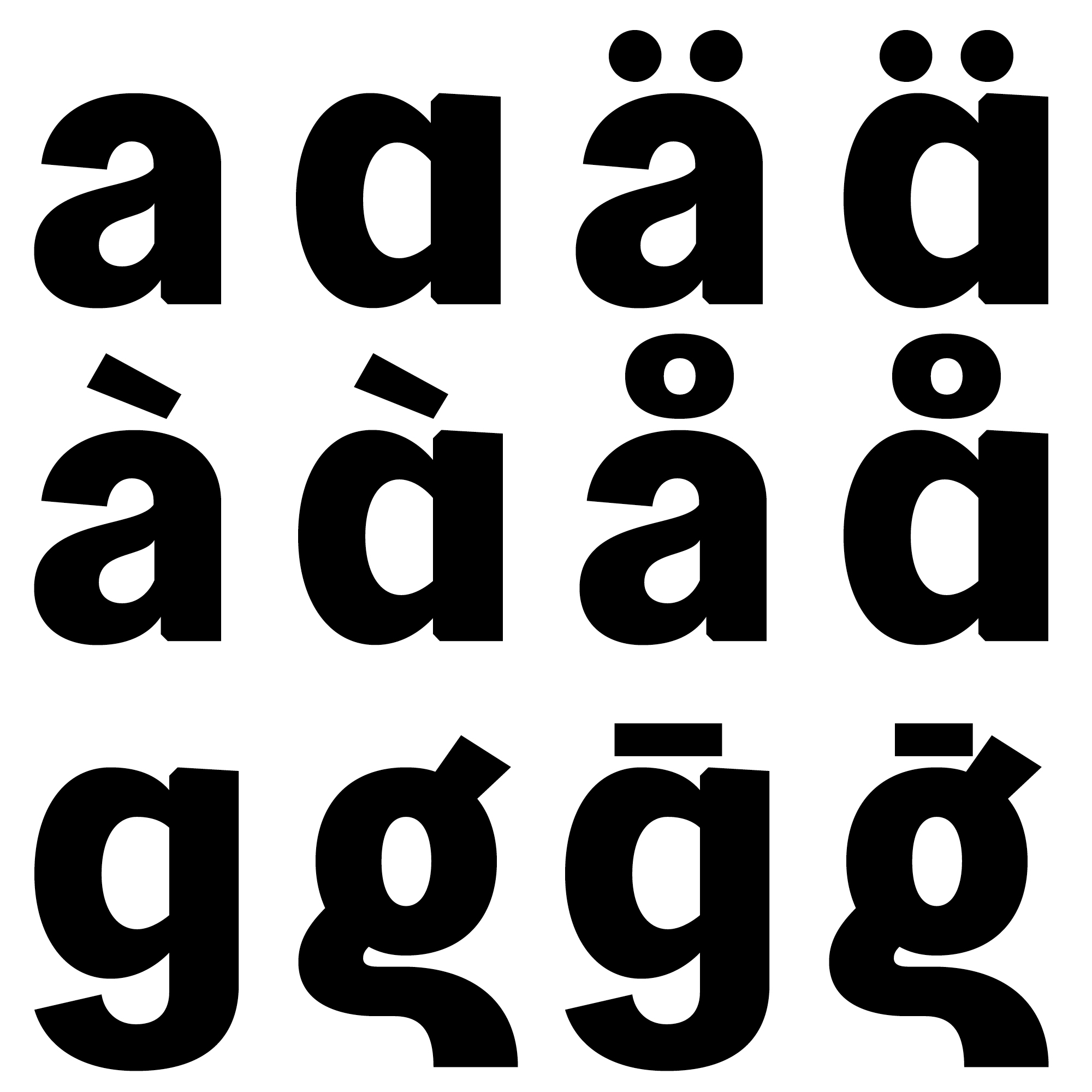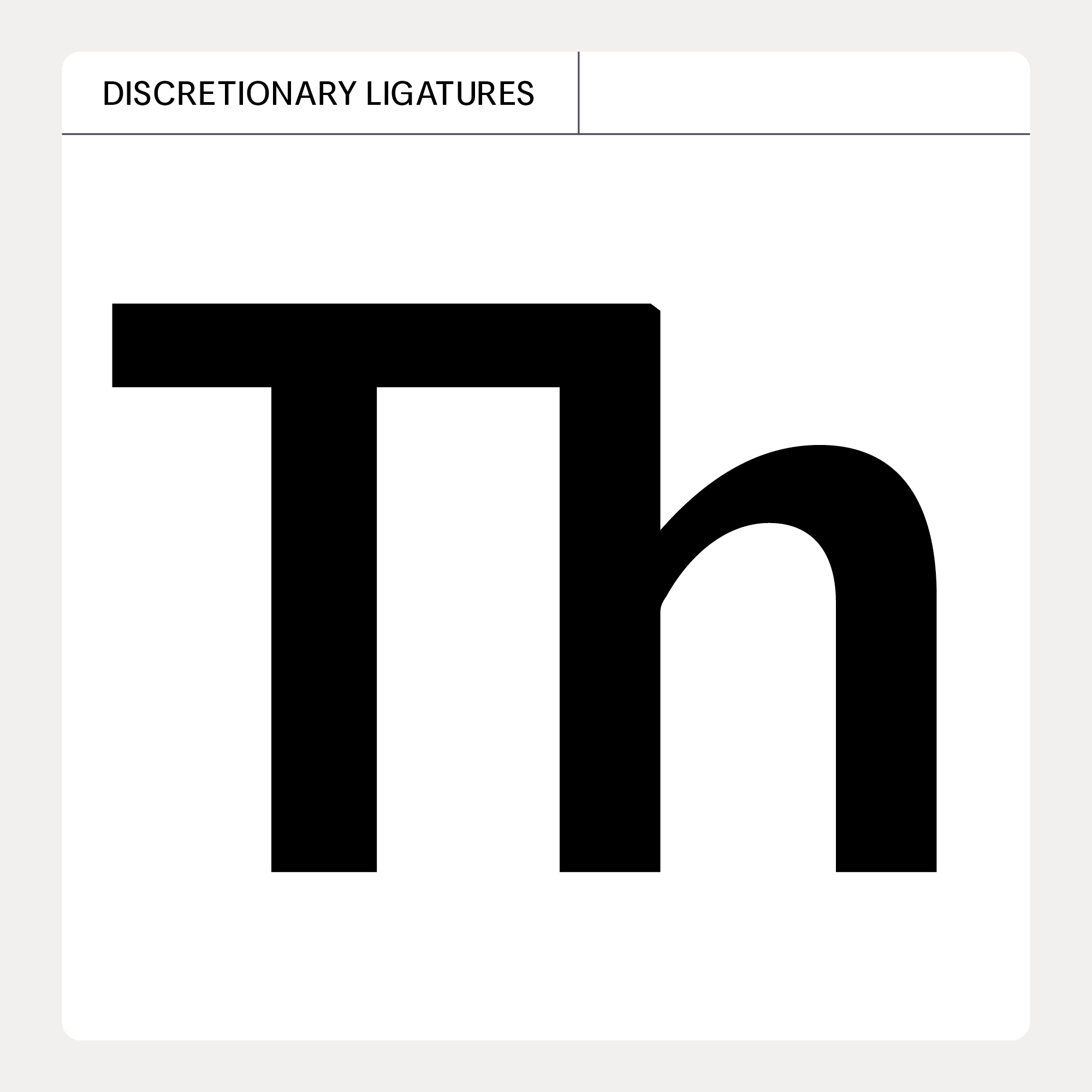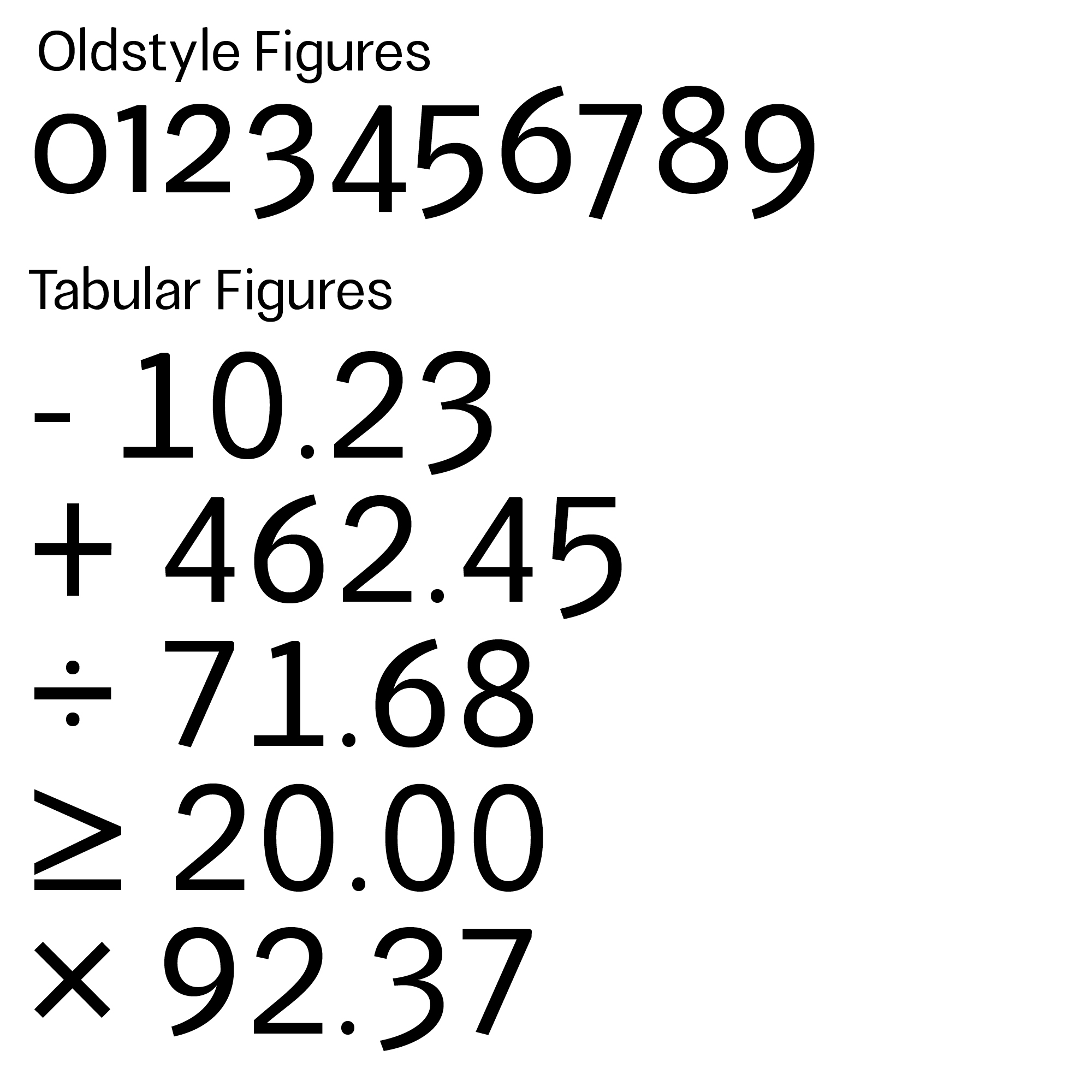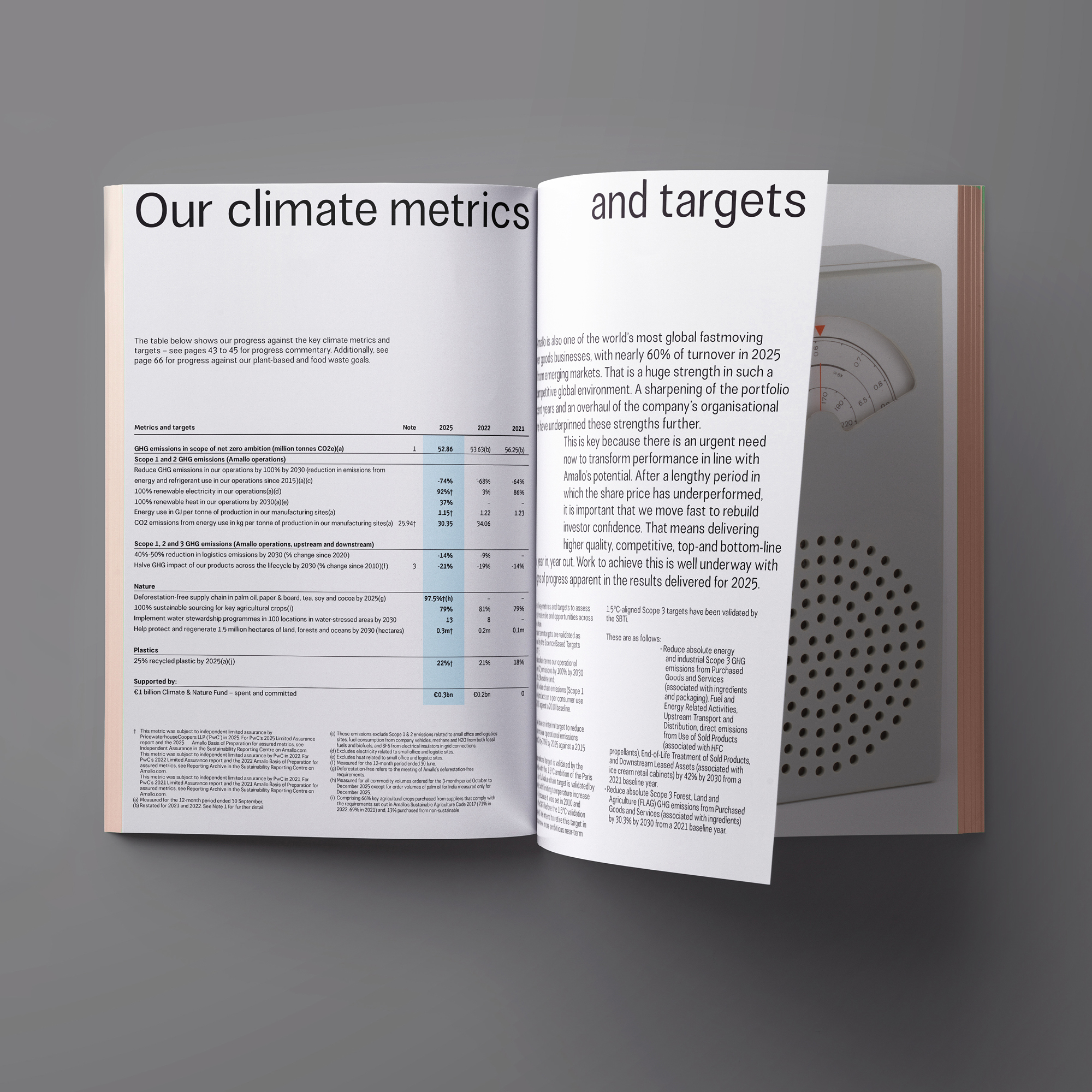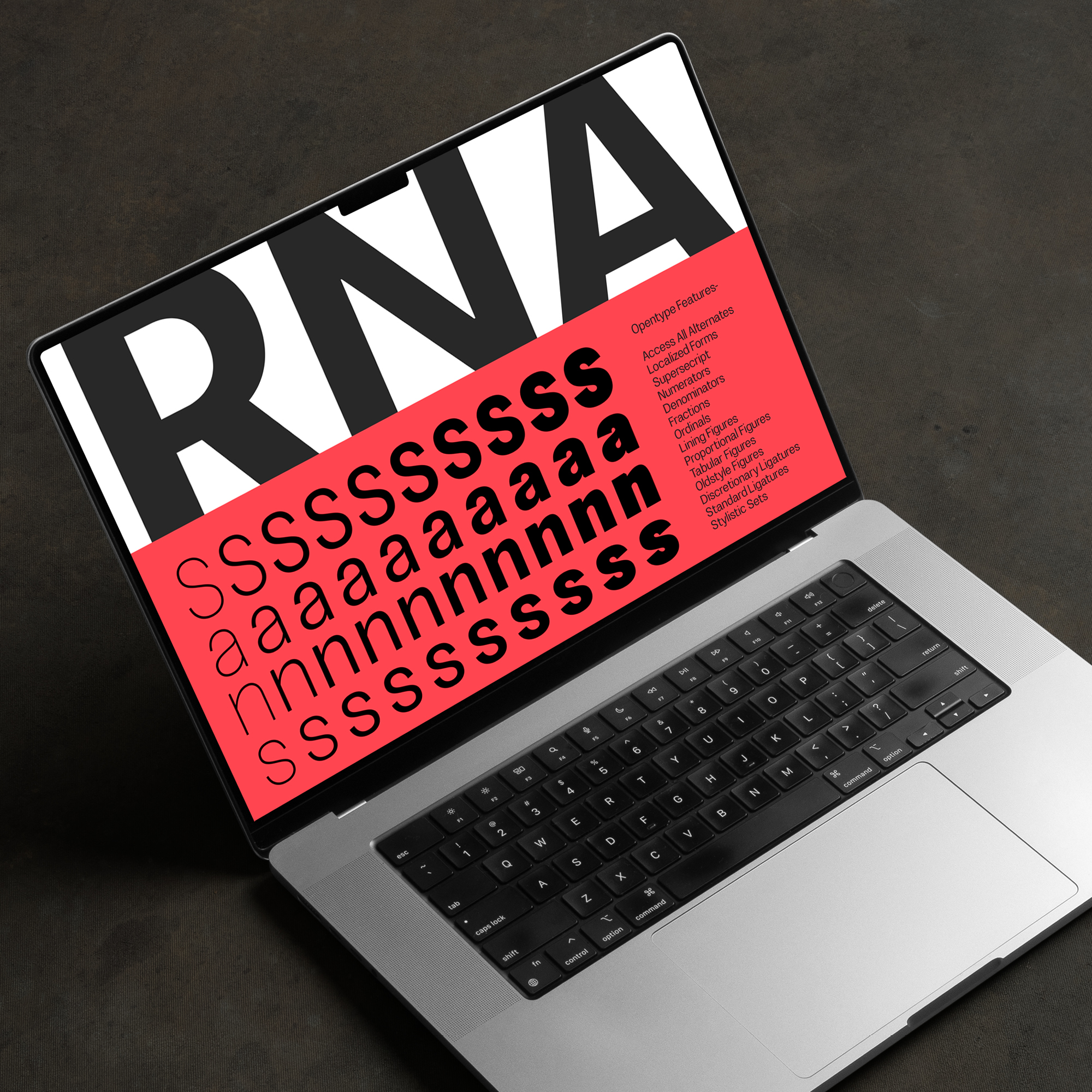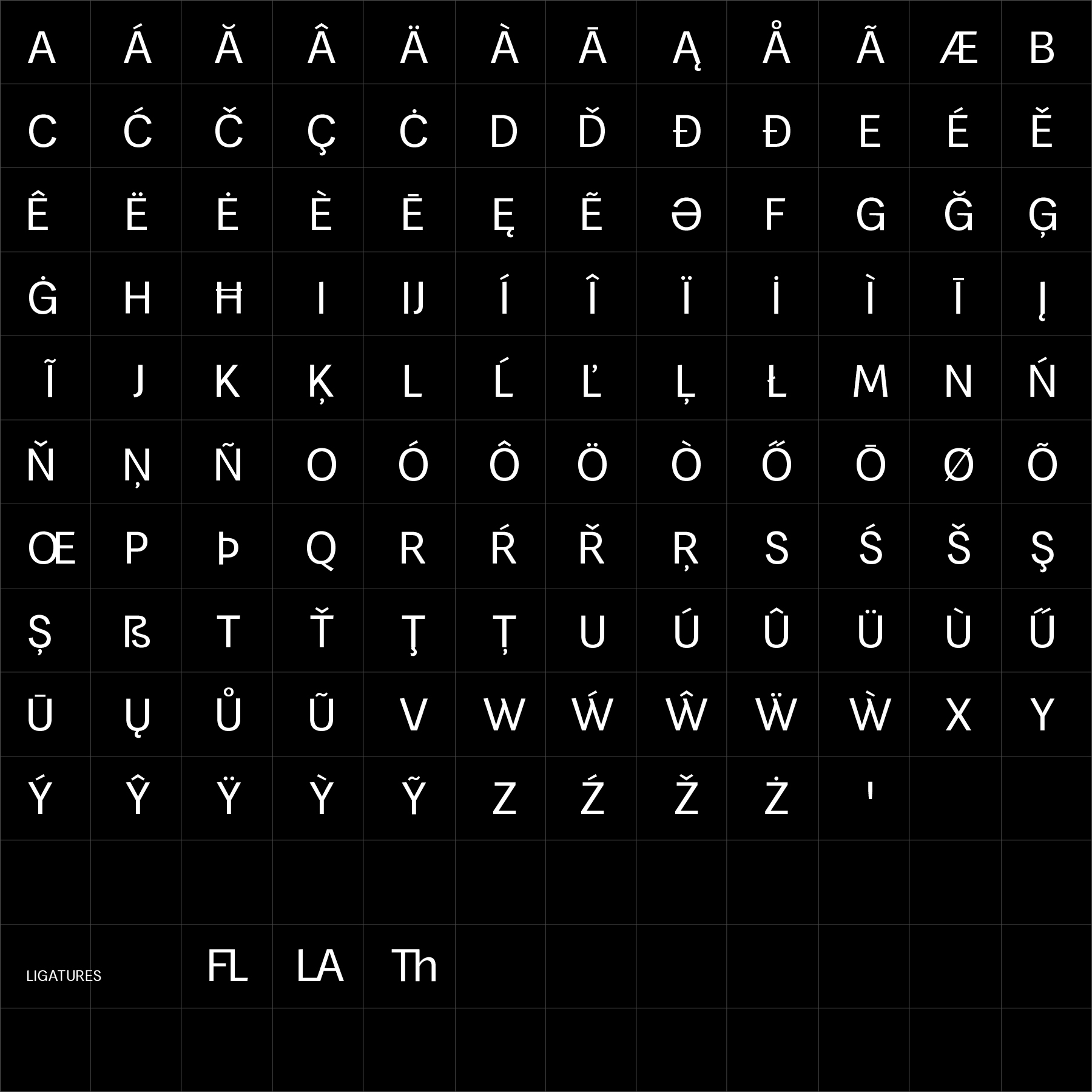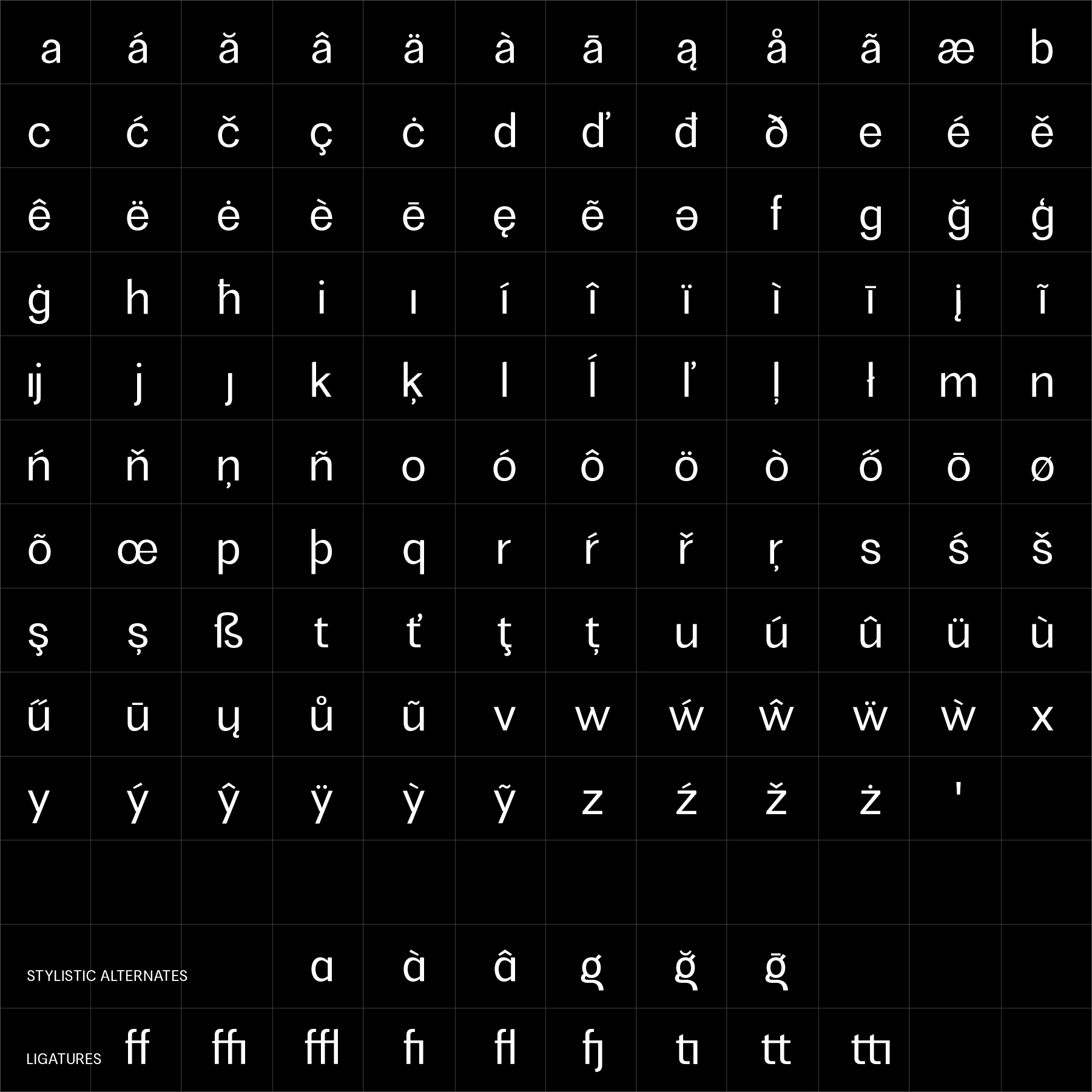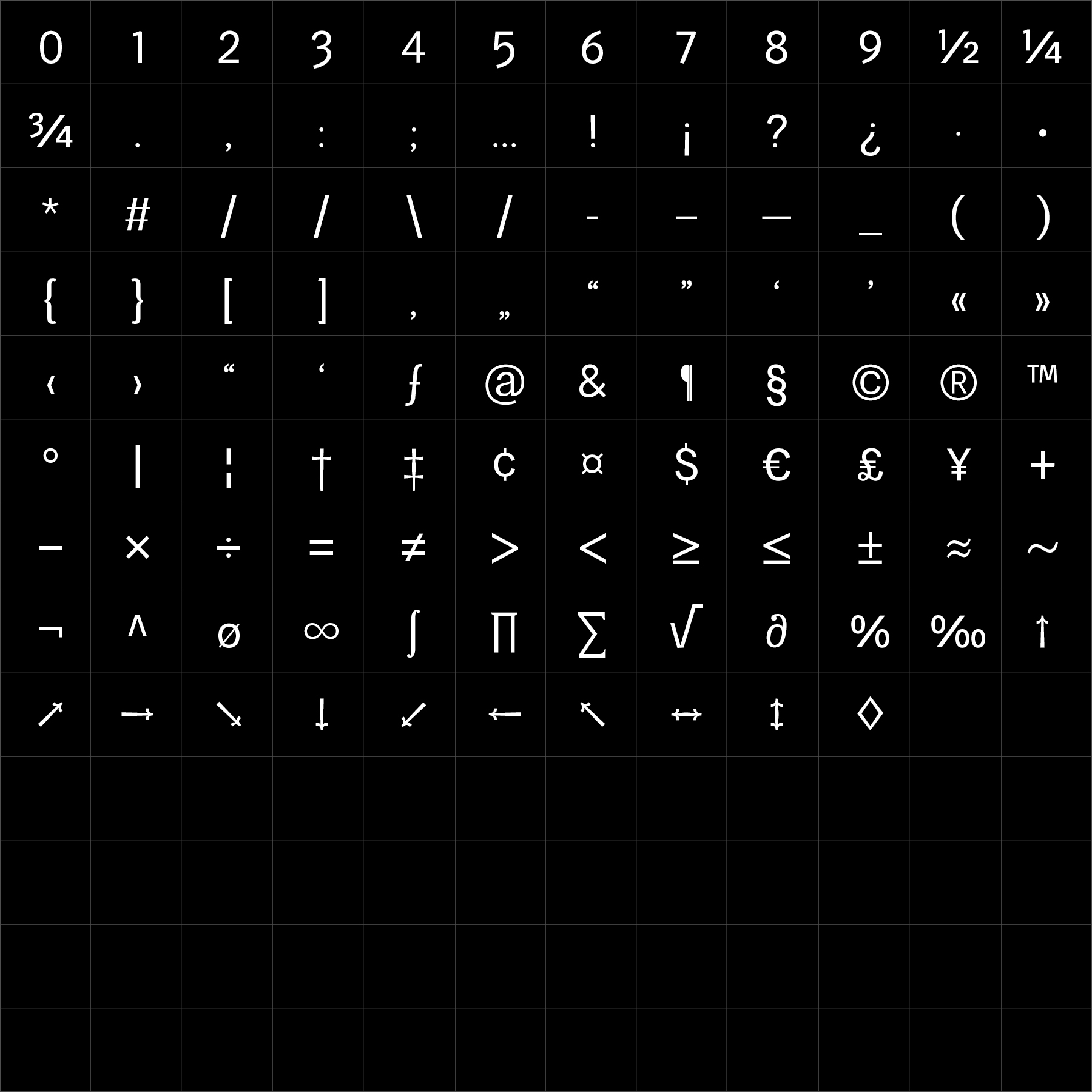
RNA Sans is shaped by modular structure, technical precision and a compact visual rhythm. Sharp geometry and controlled spacing give the family a highly engineered voice while maintaining the clarity required for practical communication.
RNA Sans performs particularly well across technology identities, interface design, editorial systems, motion graphics and information-rich environments where consistency and clear hierarchy are essential. RNA Sans provides designers with a flexible typographic system that combines technical character, disciplined rhythm and a controlled visual tone across print and digital communication.